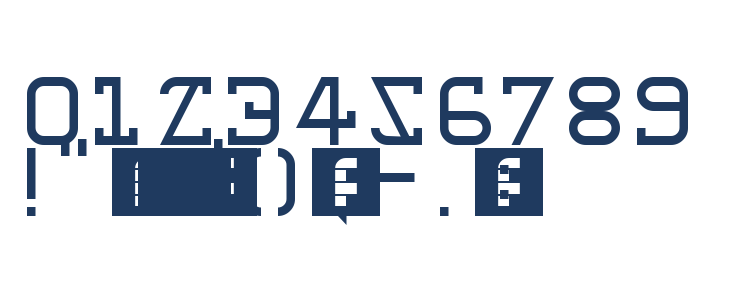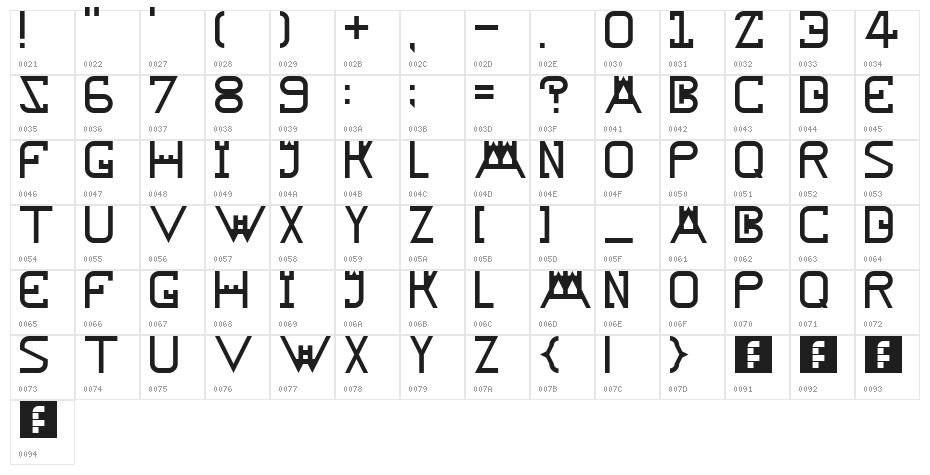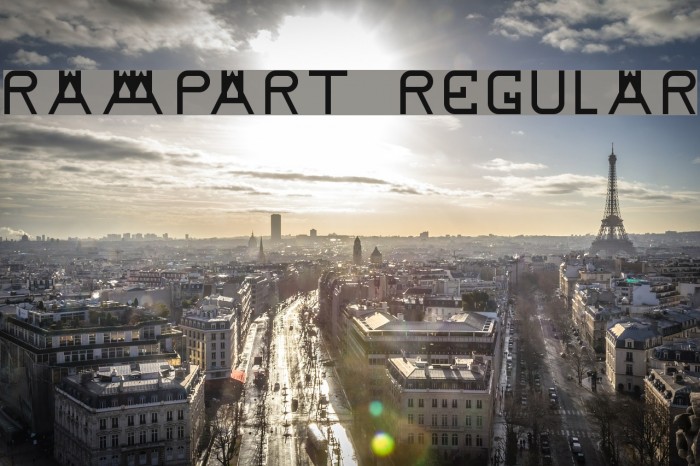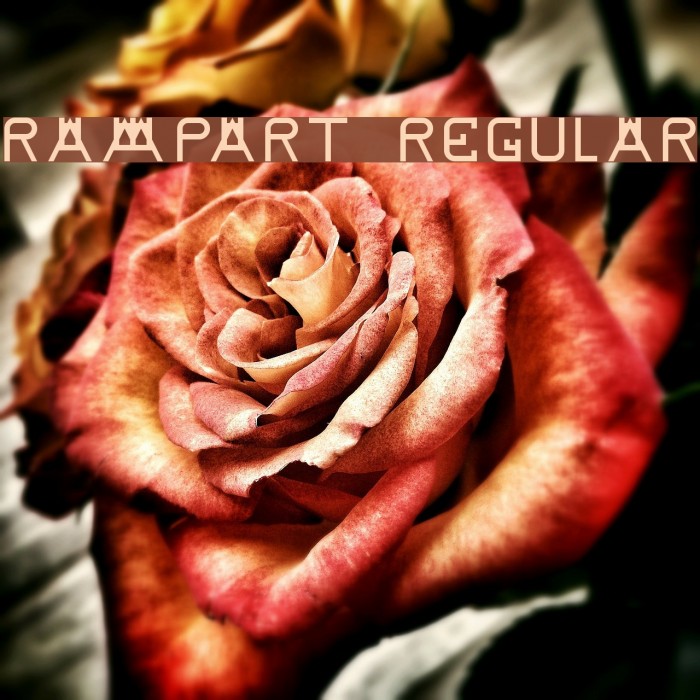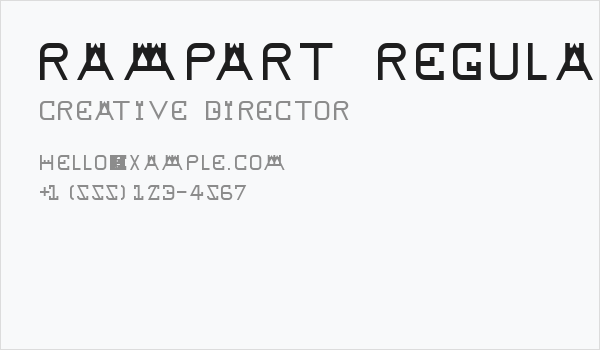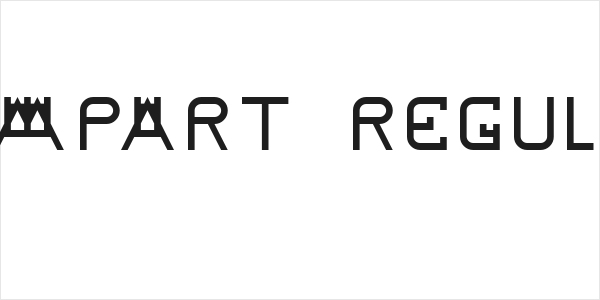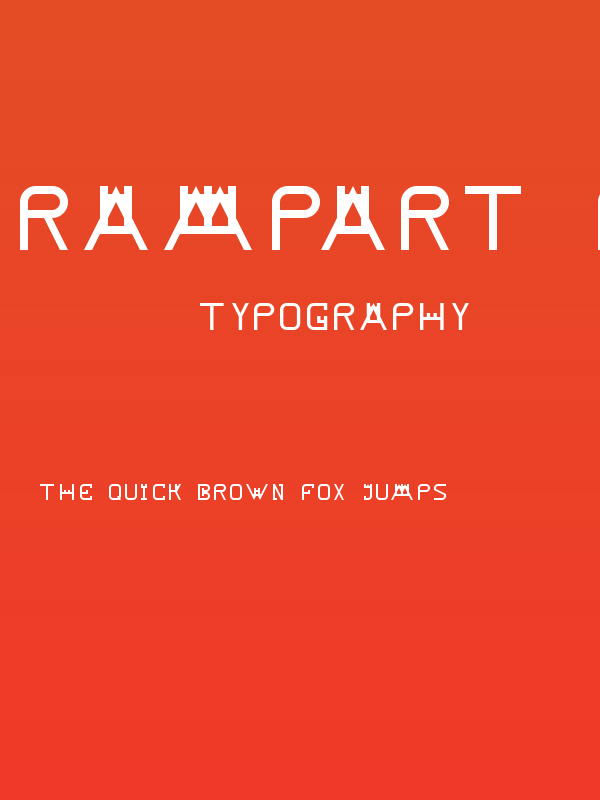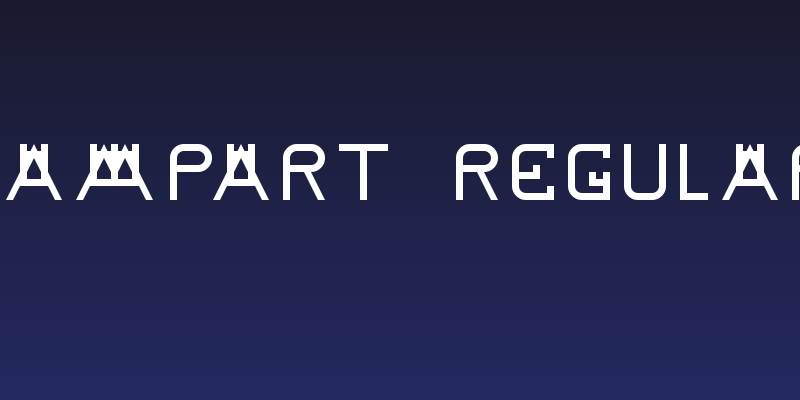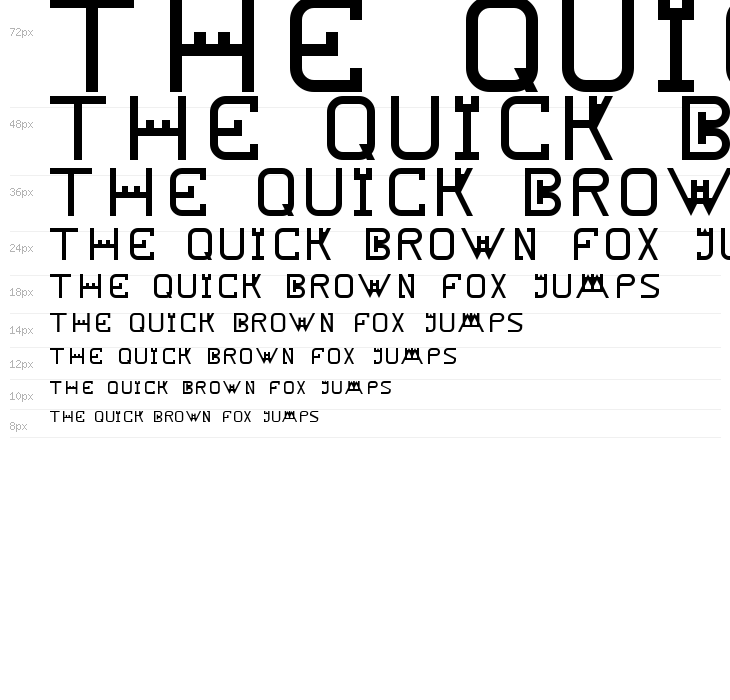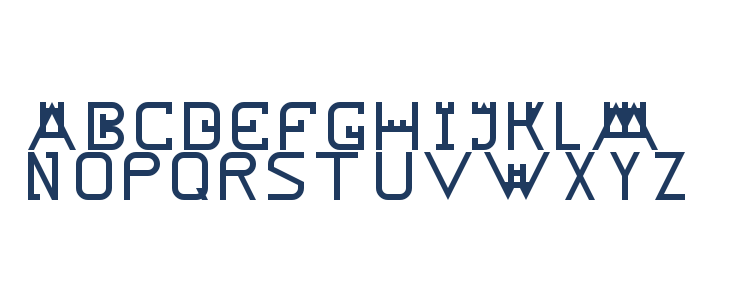
Rampart Regular Font
Rampart Regular Description
This font features a bold and geometric design with a modern aesthetic. The characters are constructed with sharp angles and clean lines, giving it a futuristic and technical appearance. The uppercase letters are particularly striking, with unique embellishments that add a distinctive flair. The numerals and special characters maintain the same angular style, ensuring consistency throughout. This font's design is both eye-catching and versatile, making it suitable for a variety of creative applications.
| Proposed Projects | Ideal for technology branding, sci-fi themed projects, video game interfaces, and modern poster designs. |